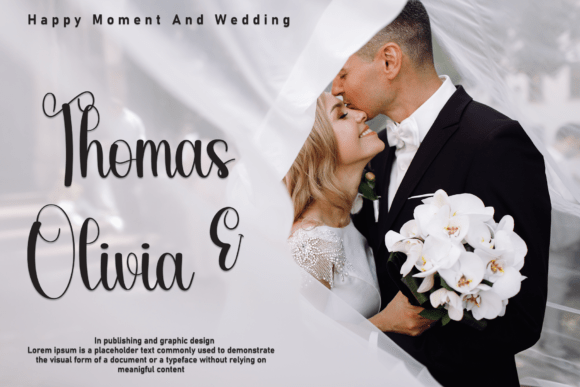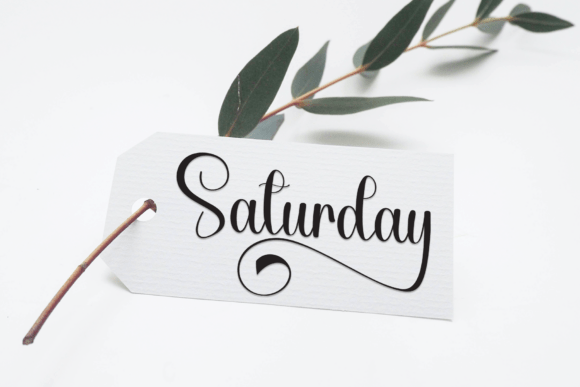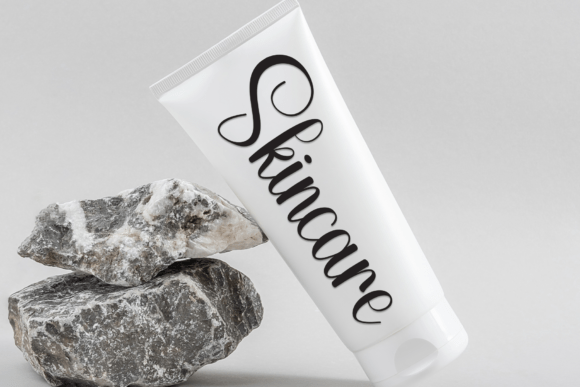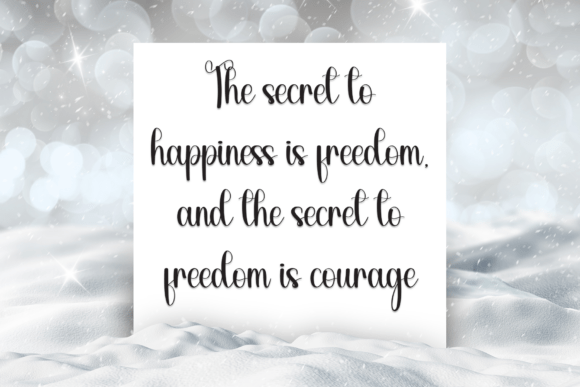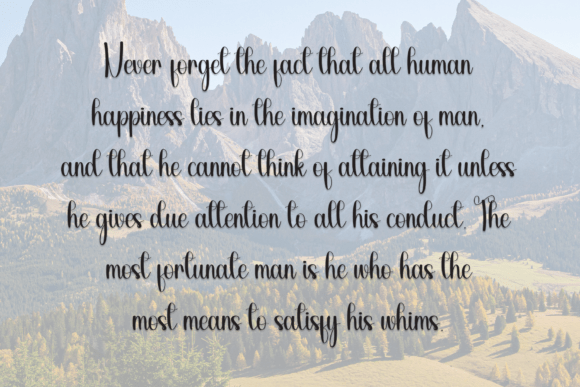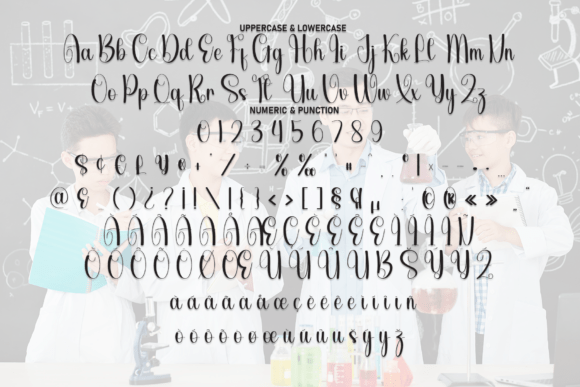
Chemistry Font: The Perfect Blend of Whimsy and Charm
Are you looking for a font that can add a touch of warmth and personality to your creative projects? Look no further than the Chemistry Font, a handwritten typeface that embodies the essence of joy and whimsy. With its light-hearted demeanor and captivating charm, this font is perfect for creating heartfelt and personal wedding invitations, bespoke cards, and any other creative endeavor that requires a dash of magic.
The Allure of Handwritten Fonts
Handwritten fonts have a way of evoking emotions and creating a sense of connection with the reader. They are often associated with warmth, comfort, and a personal touch, making them perfect for projects that require a human touch. The Chemistry Font takes this to the next level with its unique blend of elegance and playfulness, making it an excellent choice for designers and crafters looking to add a touch of personality to their work.
What Makes Chemistry Font So Special?
The Chemistry Font is a masterpiece of typographic design, with each letter carefully crafted to convey a sense of joy and whimsy. Its light-hearted demeanor makes it perfect for projects that require a playful touch, while its elegance and sophistication ensure that it remains suitable for more formal applications. Whether you’re creating wedding invitations, greeting cards, or social media graphics, this font is sure to captivate your audience with its delightful and multifaceted charm.
Perfect for Wedding Invitations and Bespoke Cards
Wedding invitations and bespoke cards are special occasions that require a font that can convey the emotions and personality of the occasion. The Chemistry Font is perfect for these types of projects, as it adds a touch of warmth and whimsy that is sure to delight the recipient. Its elegant and sophisticated design ensures that it remains suitable for formal weddings and special occasions, while its playful demeanor adds a touch of personality and charm.
The Chemistry Font is not just limited to wedding invitations and bespoke cards. Its versatility and charm make it perfect for a wide range of creative projects, including social media graphics, blog posts, and marketing materials. Whether you’re a designer, crafter, or DIY enthusiast, this font is sure to inspire you to create something truly special.
Key Features of Chemistry Font
- Handwritten typeface with a light-hearted demeanor
- Perfect for creating heartfelt and personal wedding invitations and bespoke cards
- Elegant and sophisticated design with a playful touch
- Multifaceted charm that captivates audiences
- Versatile and suitable for a wide range of creative projects
Tips for Using Chemistry Font
- Use it for headlines and titles to add a touch of personality and whimsy
- Pair it with other fonts to create a unique and eye-catching combination
- Use it consistently throughout your design to create a cohesive look
The Chemistry Font is a truly special typeface that is sure to captivate audiences with its delightful and multifaceted charm. Its light-hearted demeanor, elegance, and sophistication make it perfect for a wide range of creative projects, from wedding invitations and bespoke cards to social media graphics and marketing materials. Whether you’re a designer, crafter, or DIY enthusiast, this font is sure to inspire you to create something truly special.